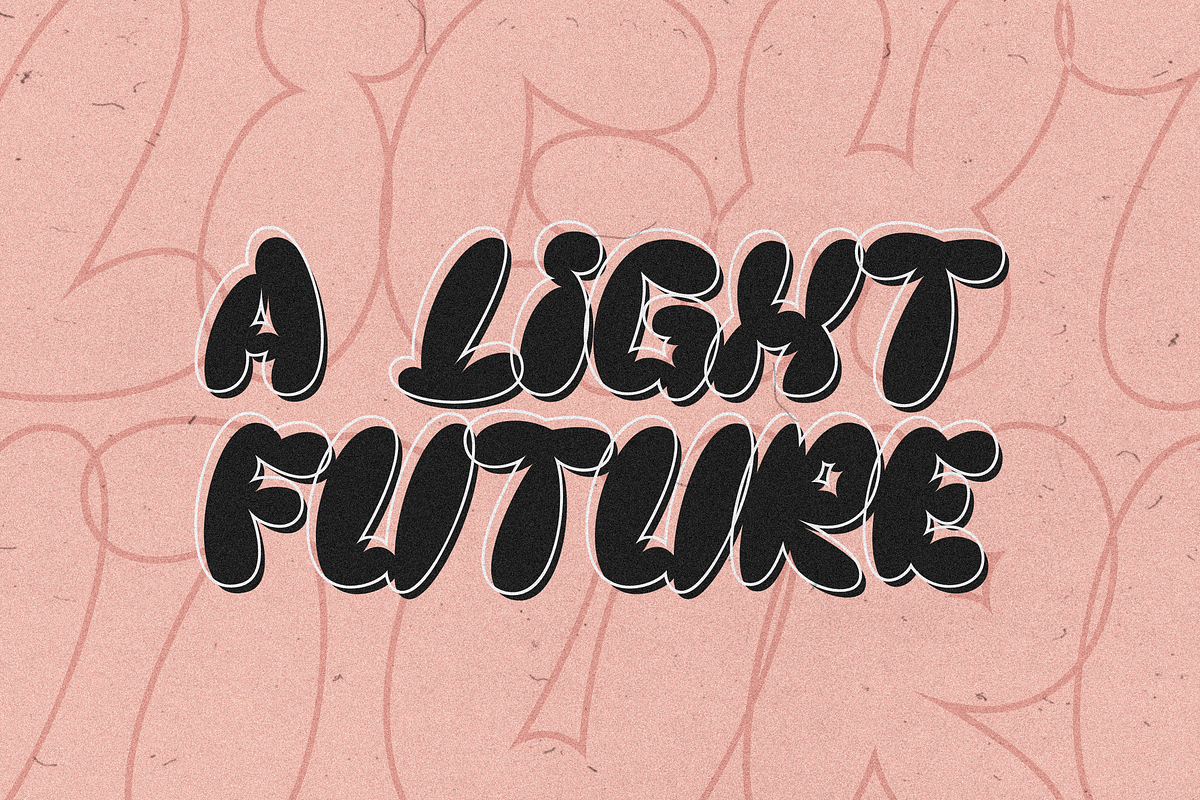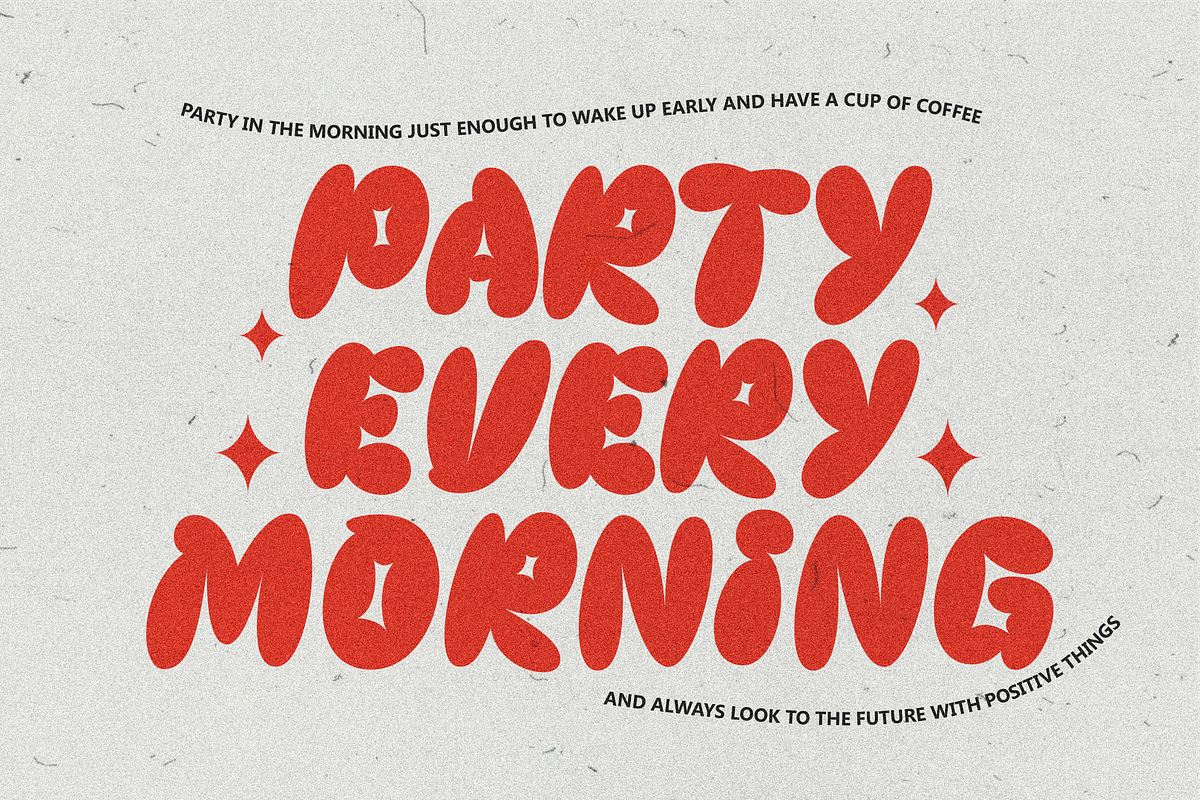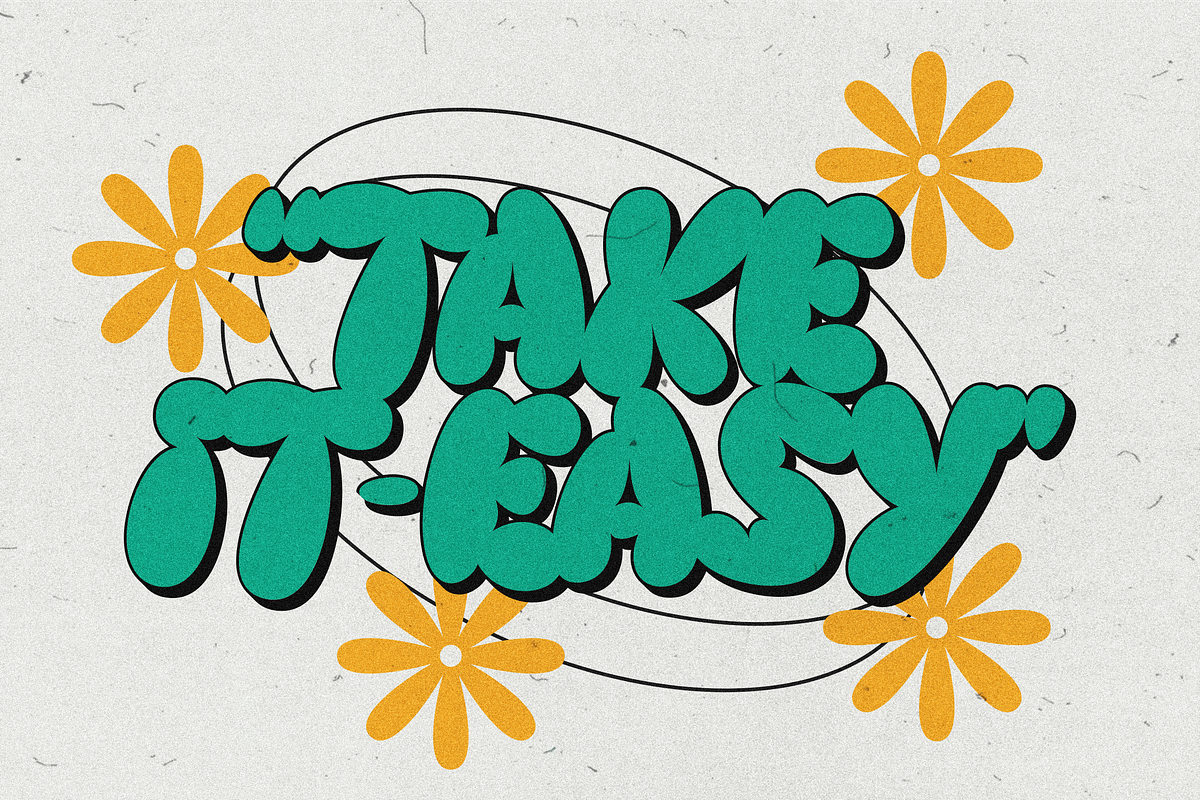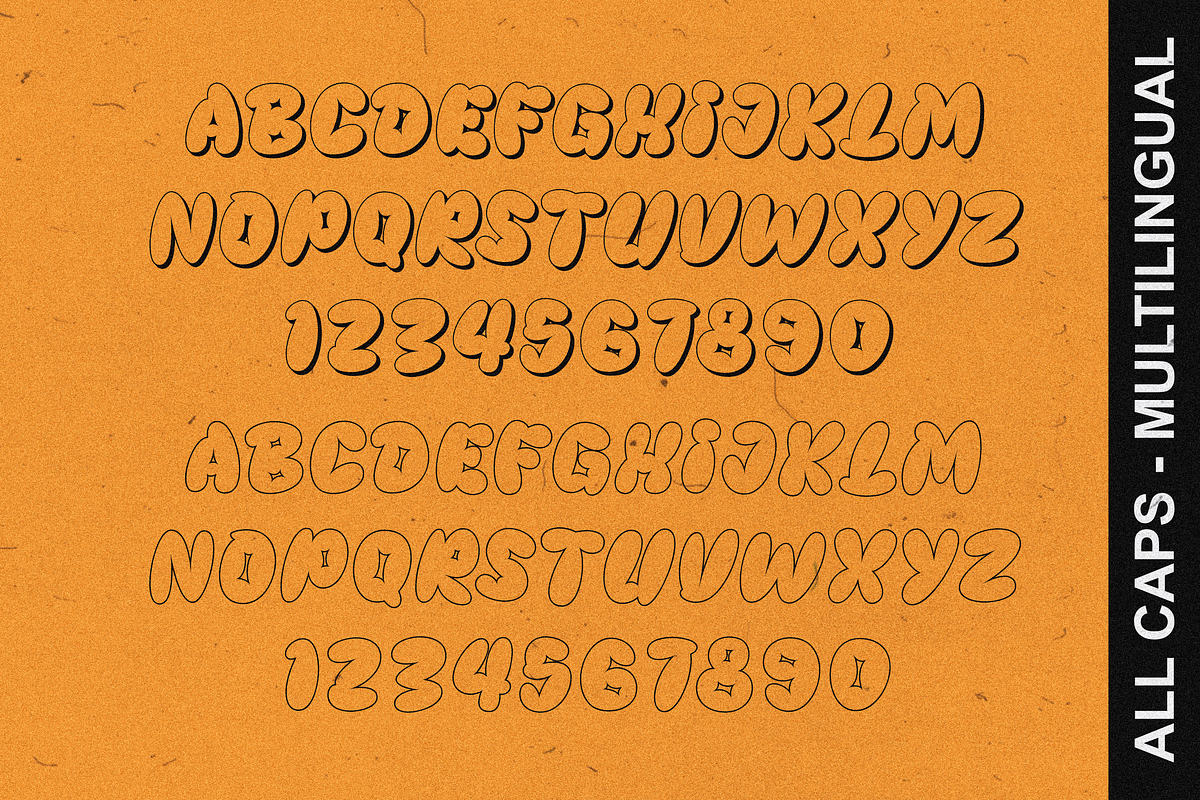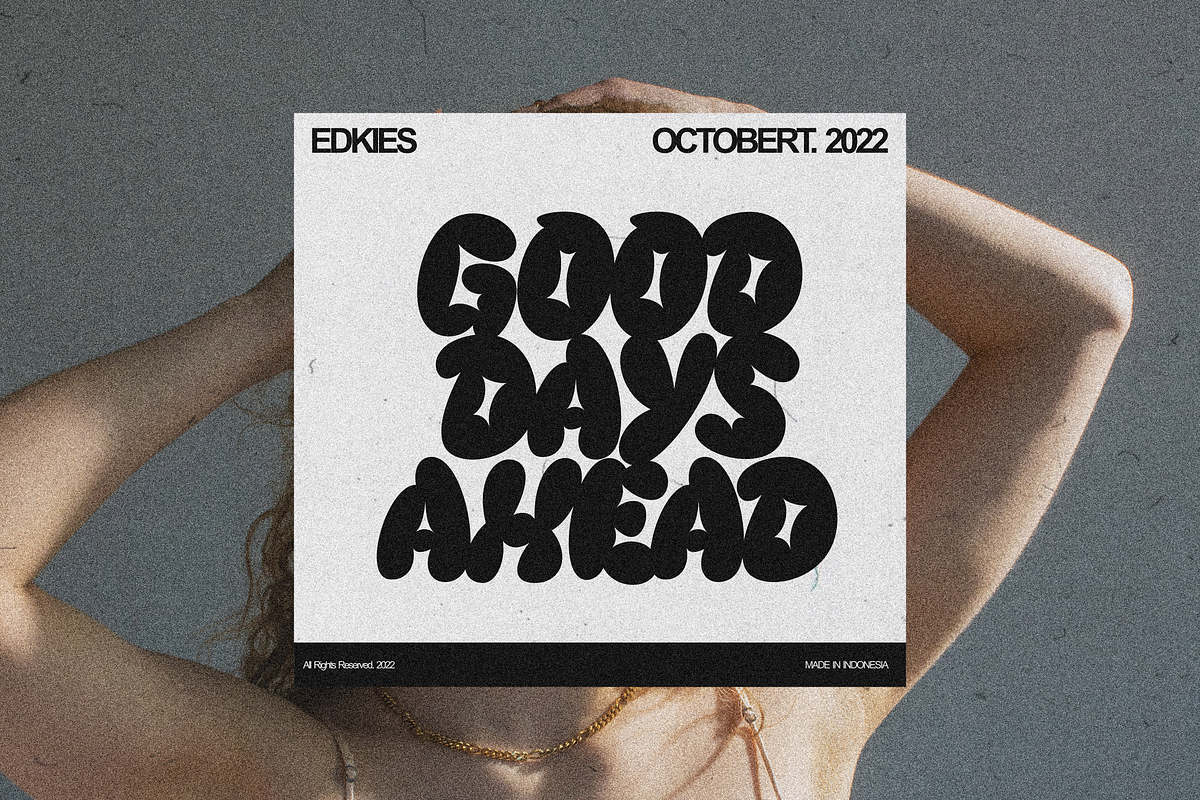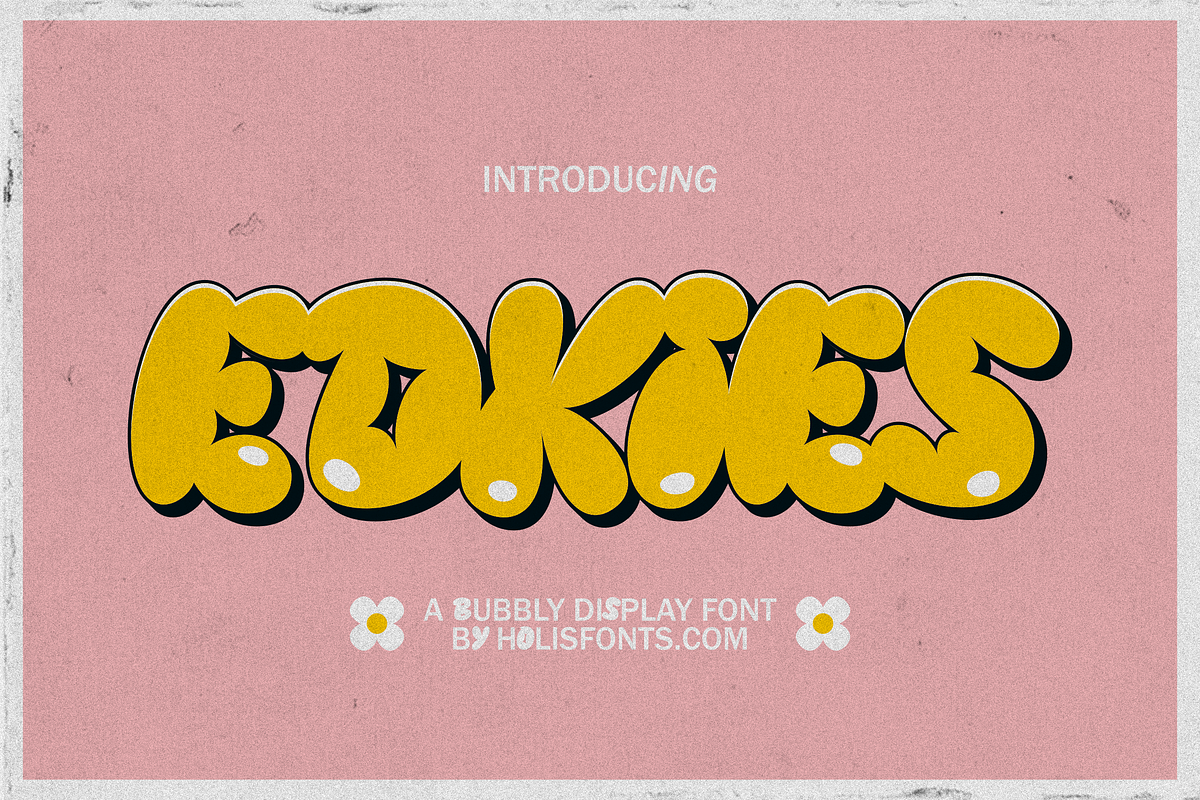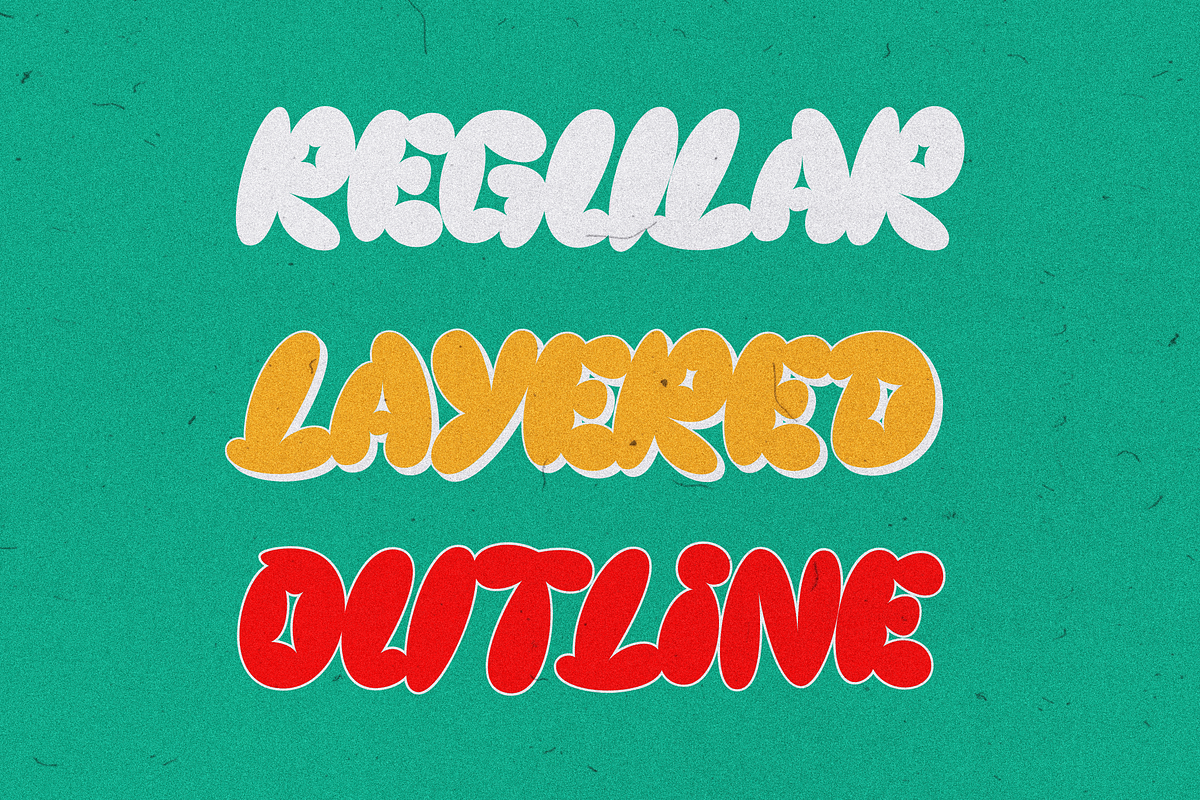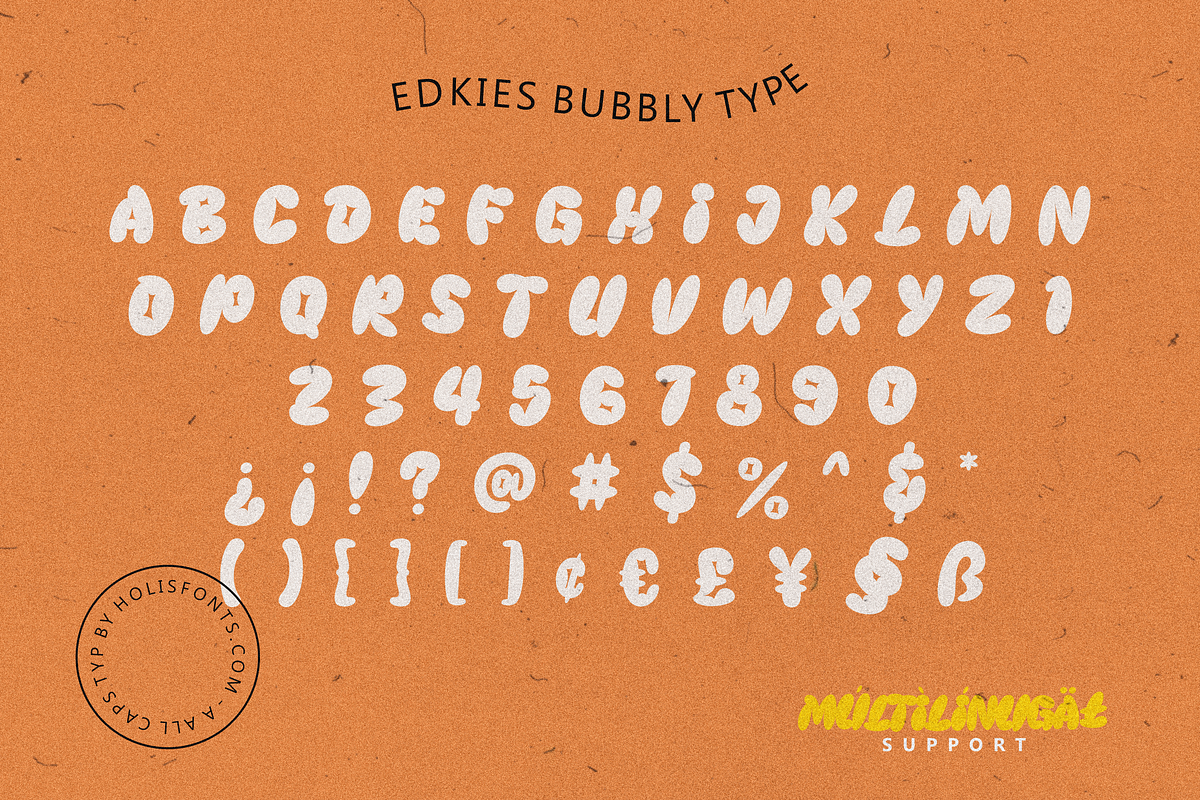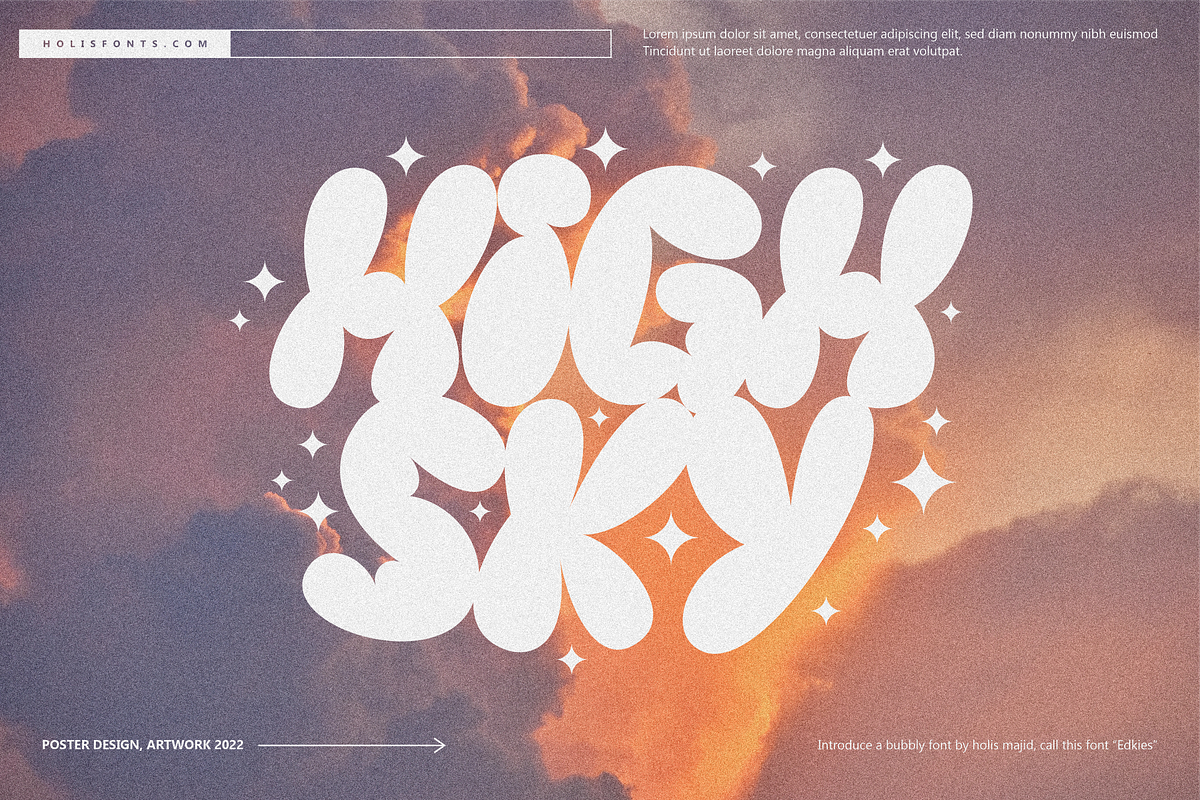
Edkies Bubbly
A cute chubby and bubbly font for your design projects.
Edkies is one of the bold, cute and funky collection fonts, a unique style and a bit messy is the concept of this font, it is available in uppercase only and multilingual supports.
- All Uppercase
- Three Styles
- Numeral
- Symbol, and
- Multilingual Support.